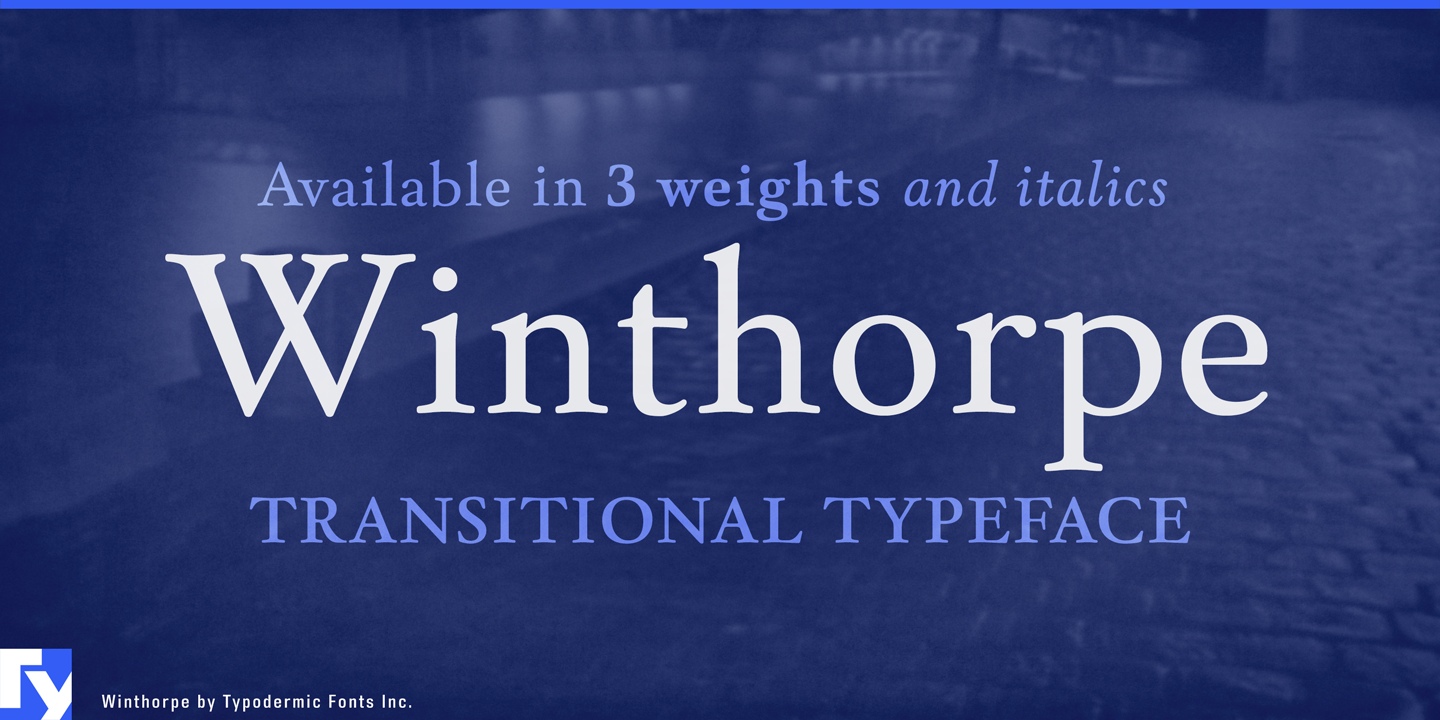
Winthorpe Font
Winthorpe Font is perfect for luxury hotel branding, prestigious law firms, high-end financial services, exclusive club memberships, aristocratic wedding invitations, premium real estate marketing, traditional British brands, heritage company logos, upscale dining establishments, and sophisticated corporate communications.
What makes Winthorpe Font so exciting is its impeccable blend of traditional British elegance and timeless sophistication that instantly conveys heritage, prestige, and aristocratic refinement through every carefully crafted letterform. This typeface embodies the essence of old-world charm and established authority, featuring classical proportions and distinguished details that have been synonymous with quality and exclusivity for generations. The font's distinguished character stems from its ability to communicate inherited wealth, cultural sophistication, and institutional credibility while maintaining contemporary relevance for modern luxury applications.
Winthorpe Font comes in multiple weights and styles including Light, Regular, Medium, Bold, and their corresponding Italic versions, along with small capitals, old-style numerals, and extensive European language support that provide comprehensive solutions for international luxury brand applications.
Whether you're developing prestigious brand identities, creating exclusive marketing materials, or designing sophisticated corporate communications, Winthorpe Font Free Download delivers unparalleled elegance and aristocratic authority. This distinguished typeface performs exceptionally across all premium applications, from intimate stationery to grand architectural signage, maintaining its noble character while ensuring perfect legibility. The font's meticulously crafted letterforms feature refined serifs and balanced proportions that create text with genuine heritage appeal and timeless sophistication.
Luxury brand consultants and high-end design agencies consistently select Winthorpe Font for clients requiring established credibility and aristocratic positioning. Its prestigious styling makes it particularly effective for private banking, luxury hospitality, heritage brands, and exclusive services targeting affluent clientele who appreciate tradition and quality. The font's authoritative presence and classical elegance create immediate recognition of premium positioning while communicating values of tradition, excellence, and exclusivity that are essential for luxury market differentiation.